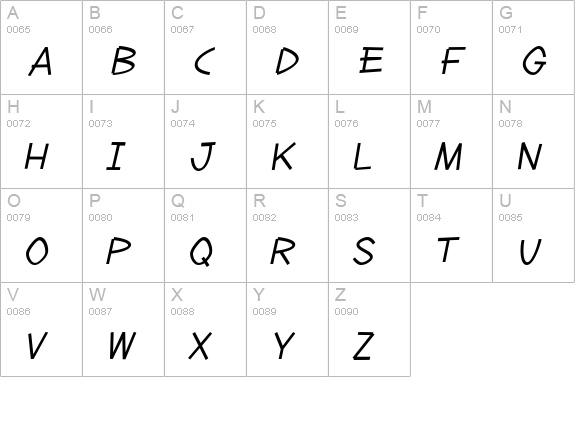
Clever Duke BTN Slick Oblique Font Details
Clever Duke BTN Slick Oblique is a distinctive, italic variant in the Clever typeface family \xE2\x80\x94 well suited to design and typography projects.
Clever Duke BTN Slick Oblique font is a modern and elegant typeface that exudes sophistication and style. With its sleek and stylish design, this font is perfect for adding a touch of class to any project. The slanted and unique letterforms of Clever Duke BTN Slick Oblique give it a distinctive look that will make your text stand out. Best of all, Clever Duke BTN Slick Oblique font is available for free download at FontsMarket.com. This means you can easily add this stunning font to your collection without any cost. Whether you're working on a branding project, designing a website, or creating eye-catching graphics, Clever Duke BTN Slick Oblique font is sure to elevate your work to the next level. Don't miss out on this fantastic opportunity to enhance your designs with this beautiful and free font.